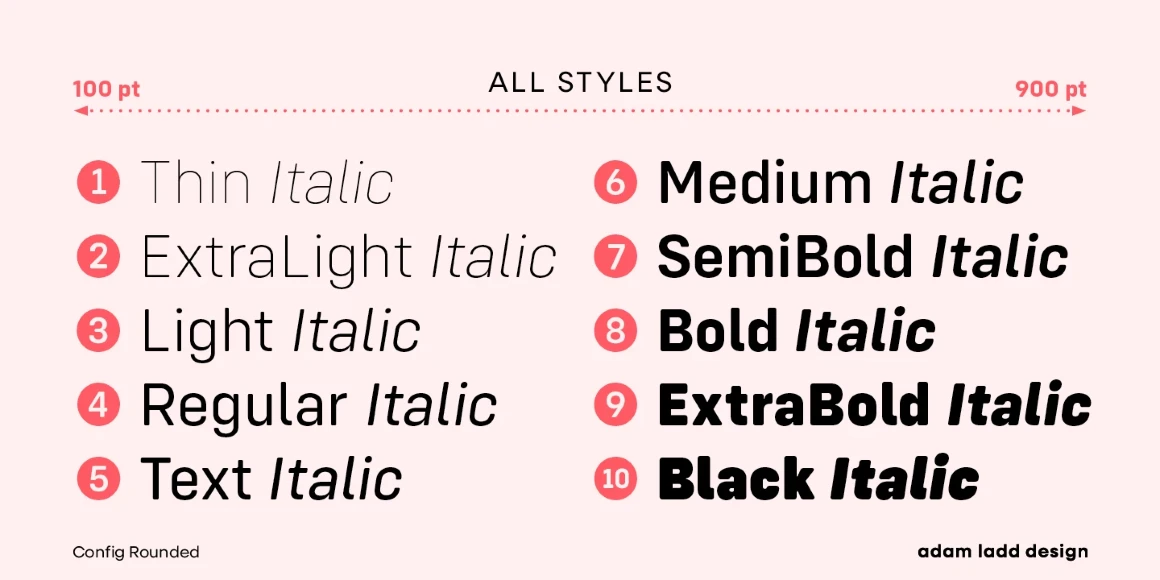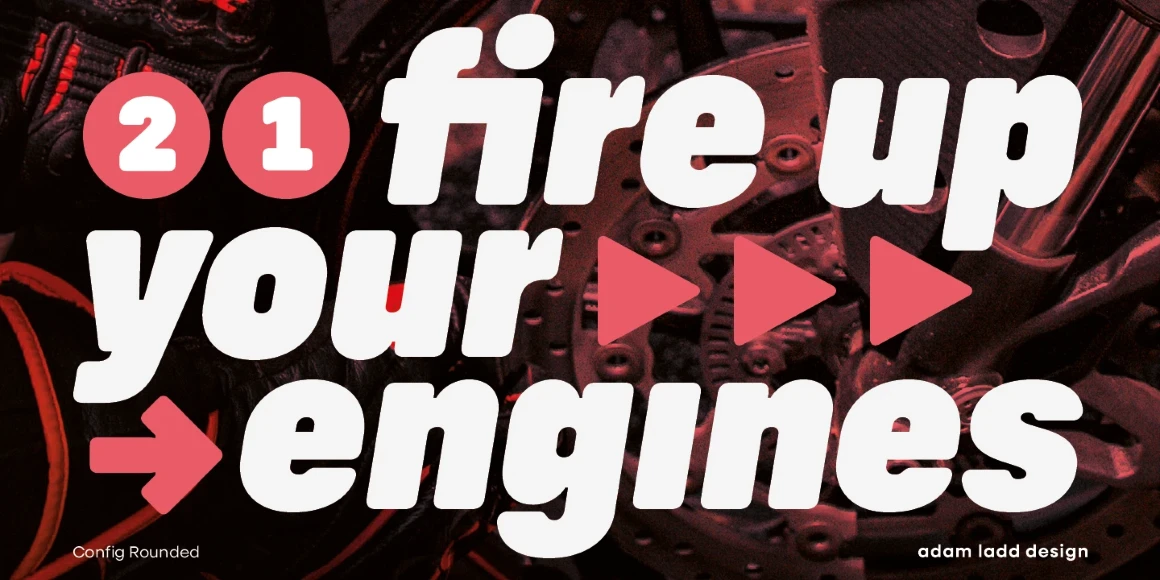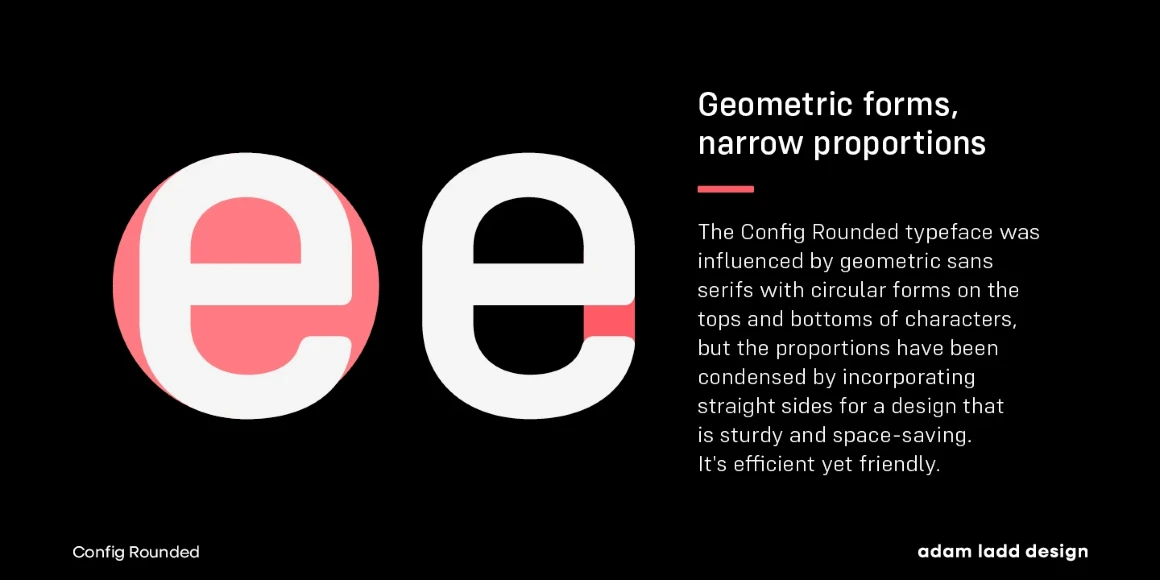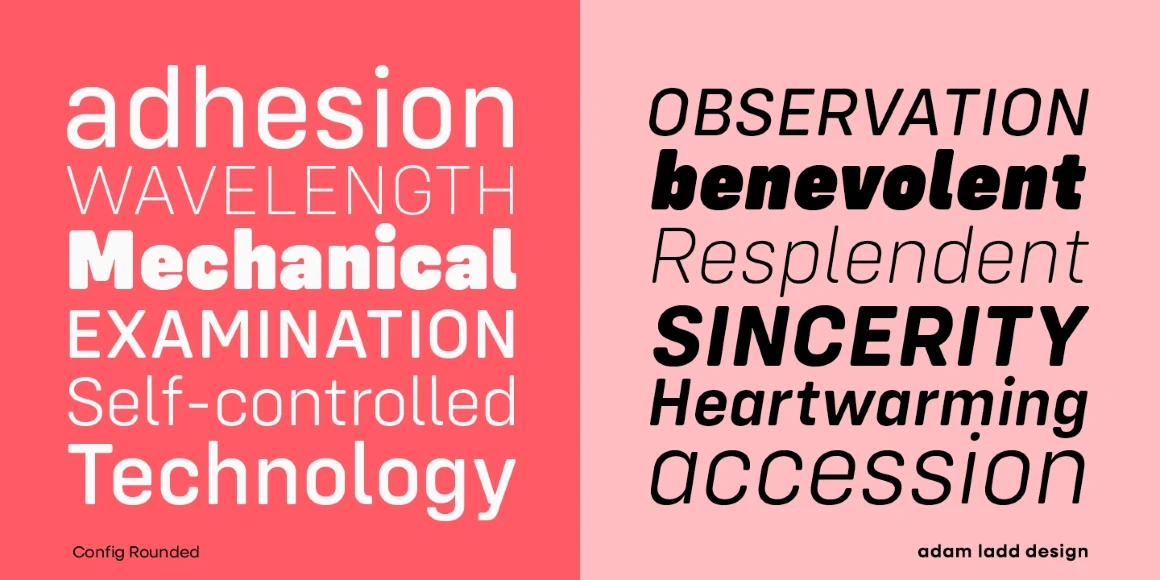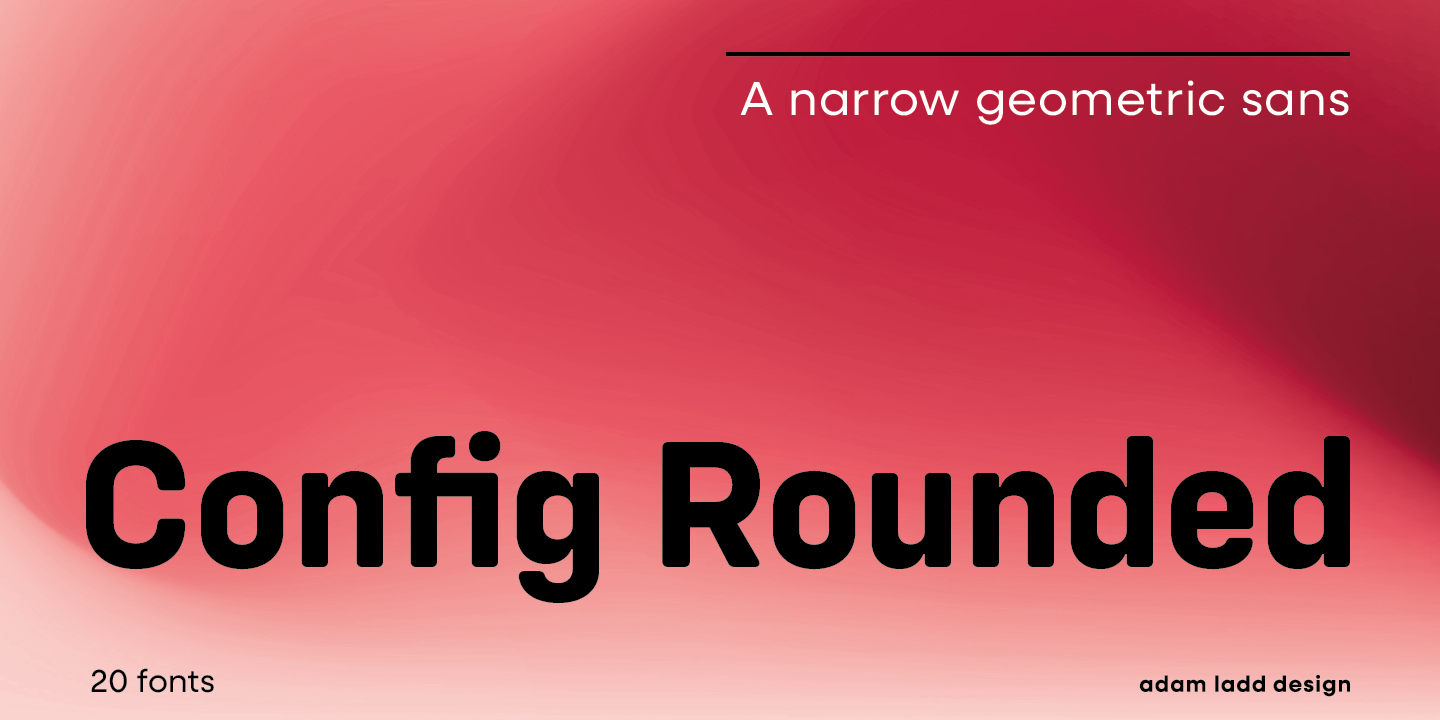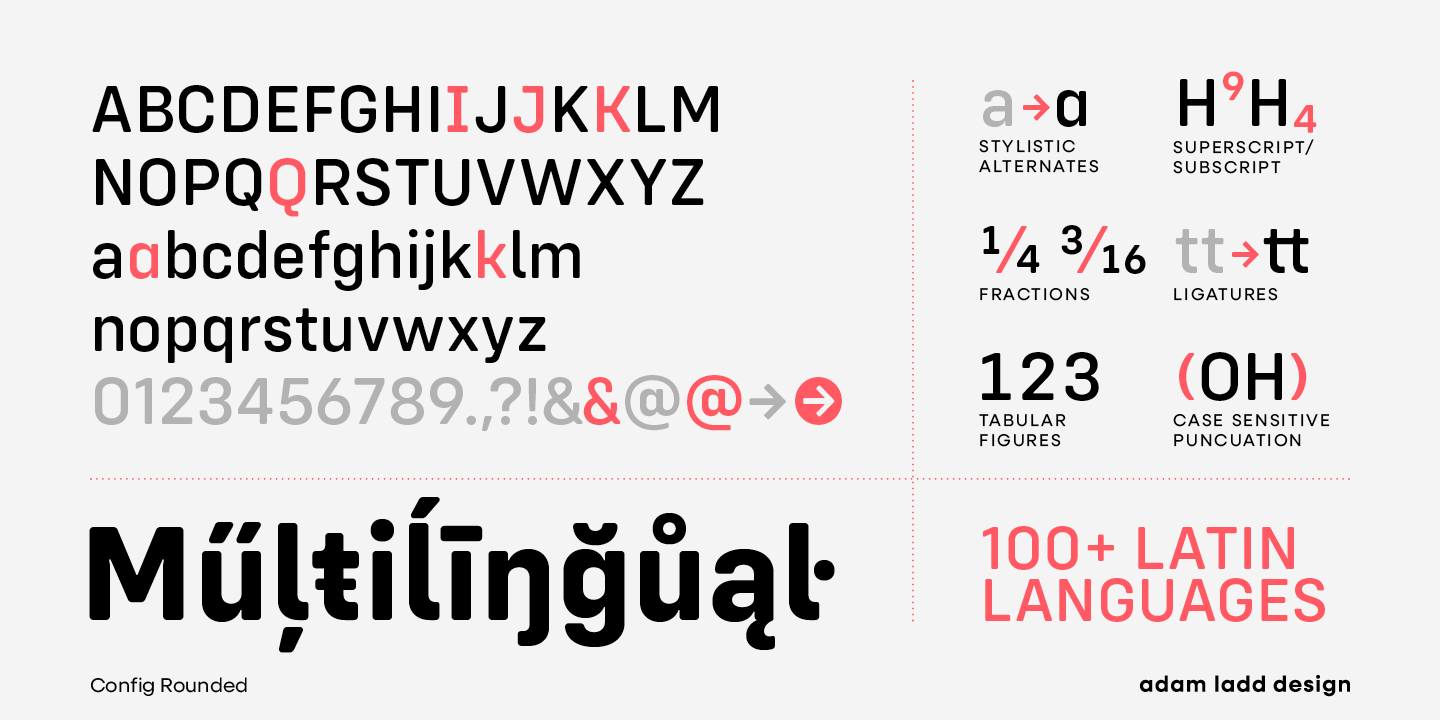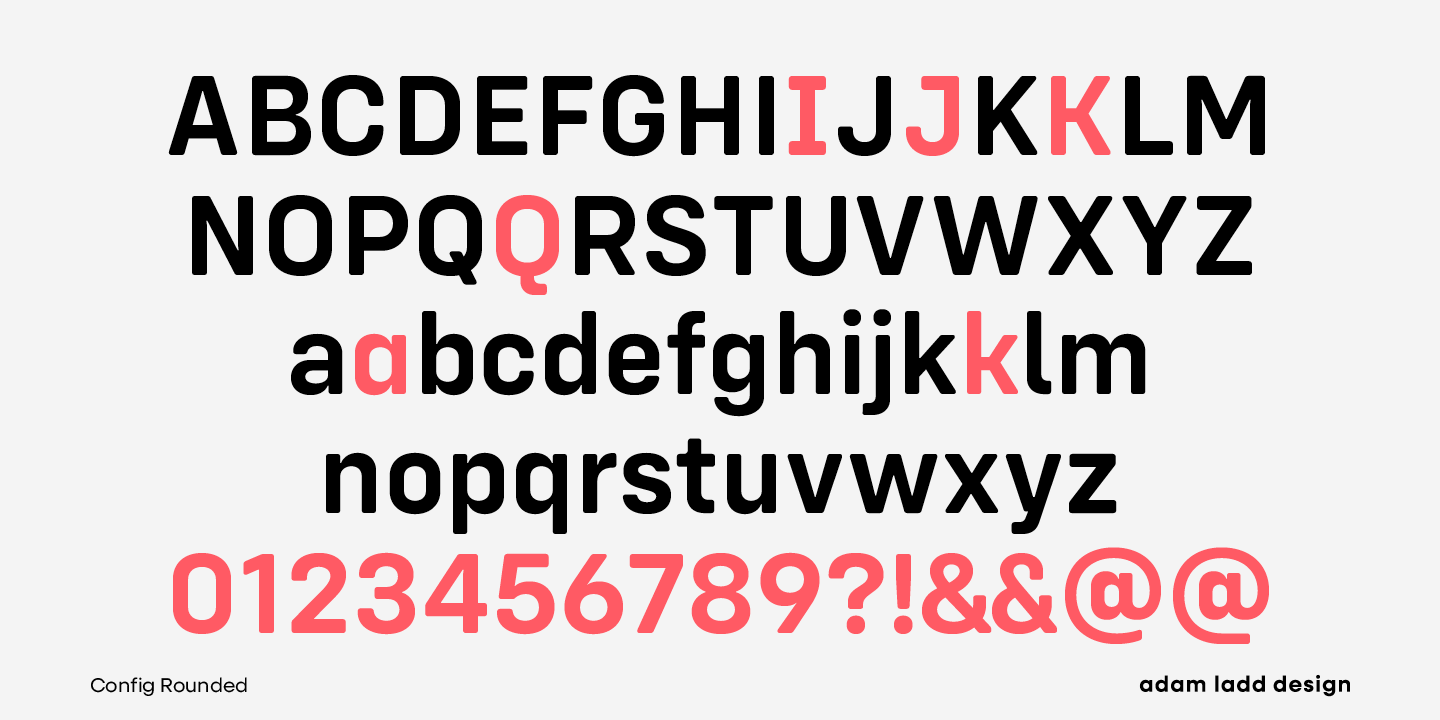
Config Rounded
By Adam Ladd
Config Rounded is a soft geometric sans family in the style of other industrial typefaces. With circular forms on the tops and bottoms of characters, the proportions have been condensed by incorporating straight sides for a sturdy, space-saving design. Use Config Rounded for a subtle warmth that still looks modern and strong. This typeface’s efficiently neutral, friendly design and subtle details make it functional for text and display sizes. The options are endless, with 40 styles across 10 weights, plus italics.